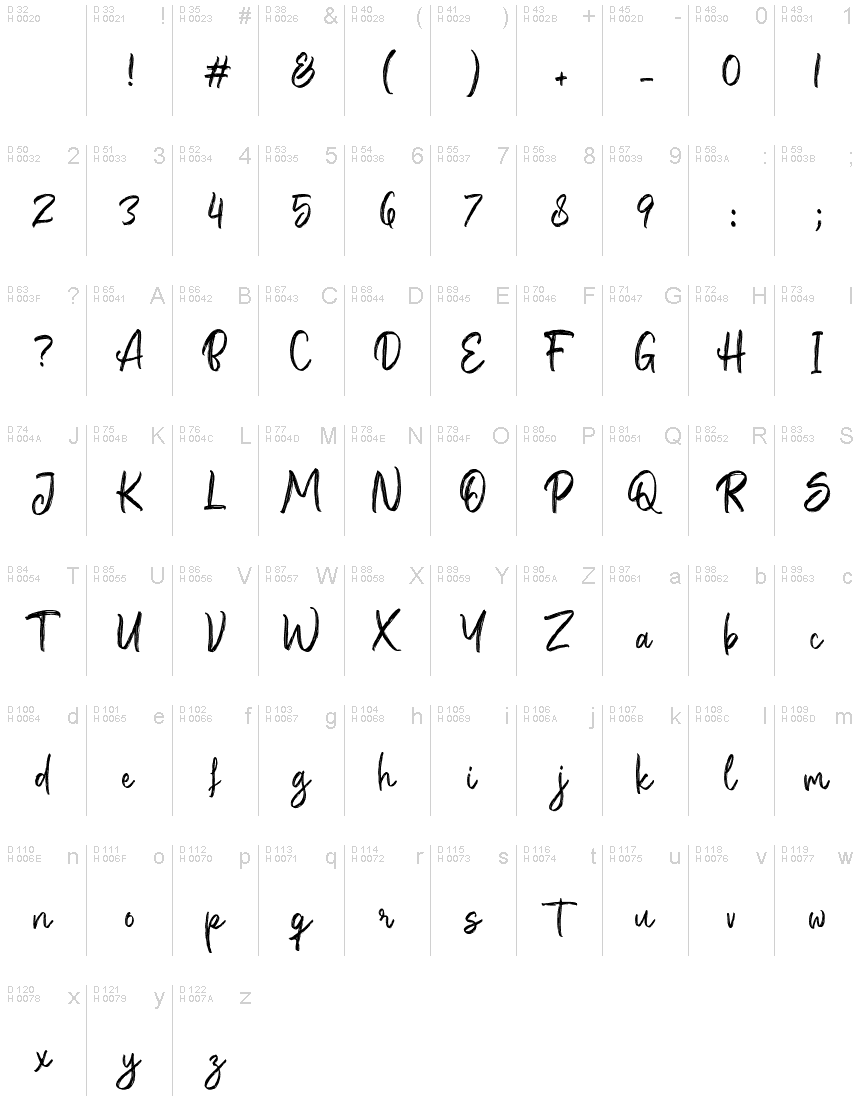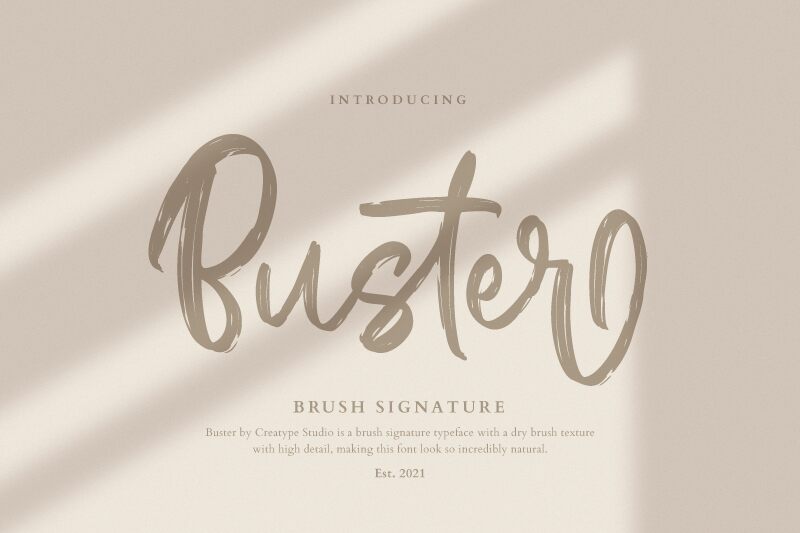
Buster Regular
Buster, the brush signature font designed by Creatype Studio, is the perfect choice for projects that require a touch of whimsy and personality. The semi-bold typeface brings a strong presence to any design, while the playful brush strokes give it a handcrafted feel. Its wide width makes it ideal for headlines, posters, and branding projects that need to stand out from the crowd. Buster is versatile enough to work in a variety of industries such as fashion, beauty, food, and more. Let Buster add some charm to your next project with its unique style and eye-catching design.